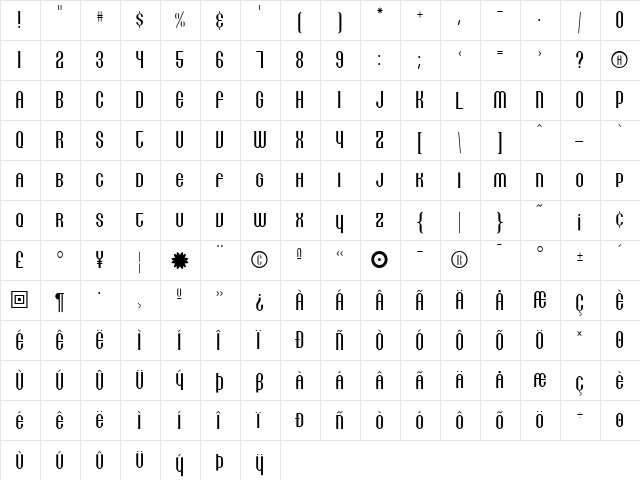
Lithia Light
Design Context for Lithia Typeface
Lithia takes a measured approach to typography — its balanced proportions and neutral character make it a reliable workhorse for both digital and print work. Its slender proportions lend an understated elegance to any composition.